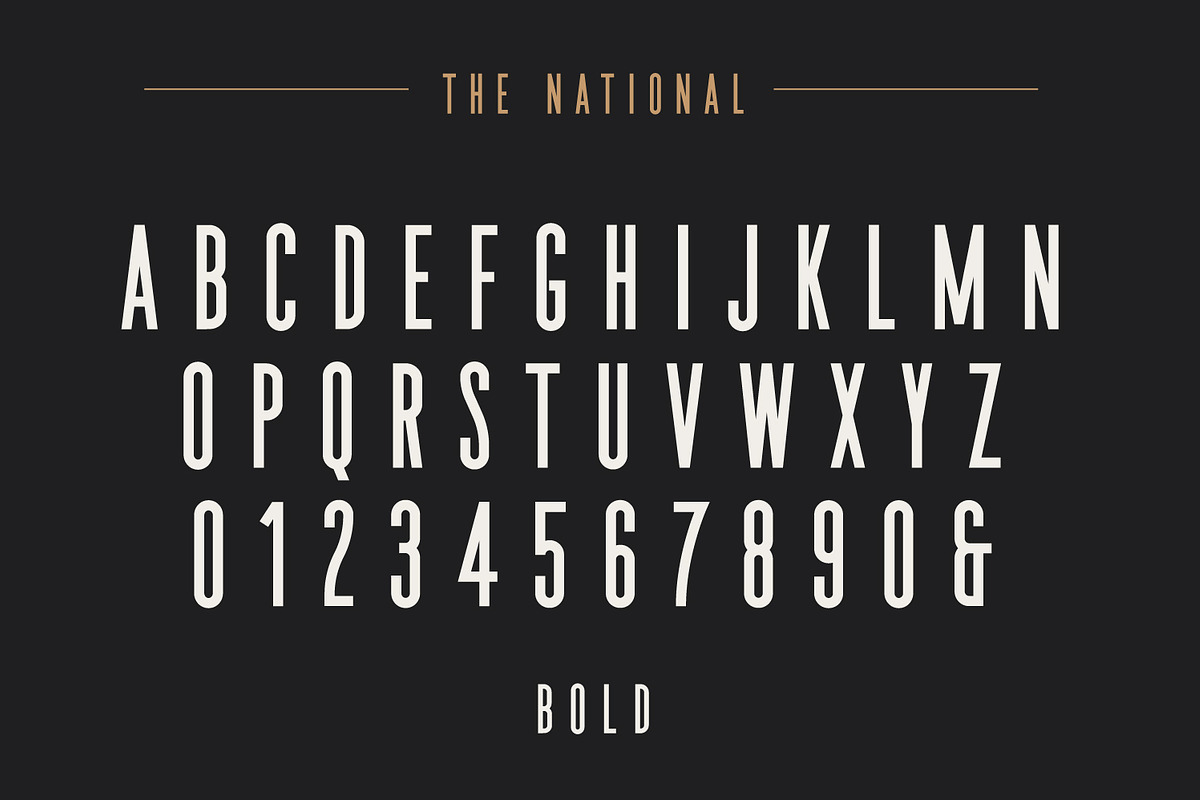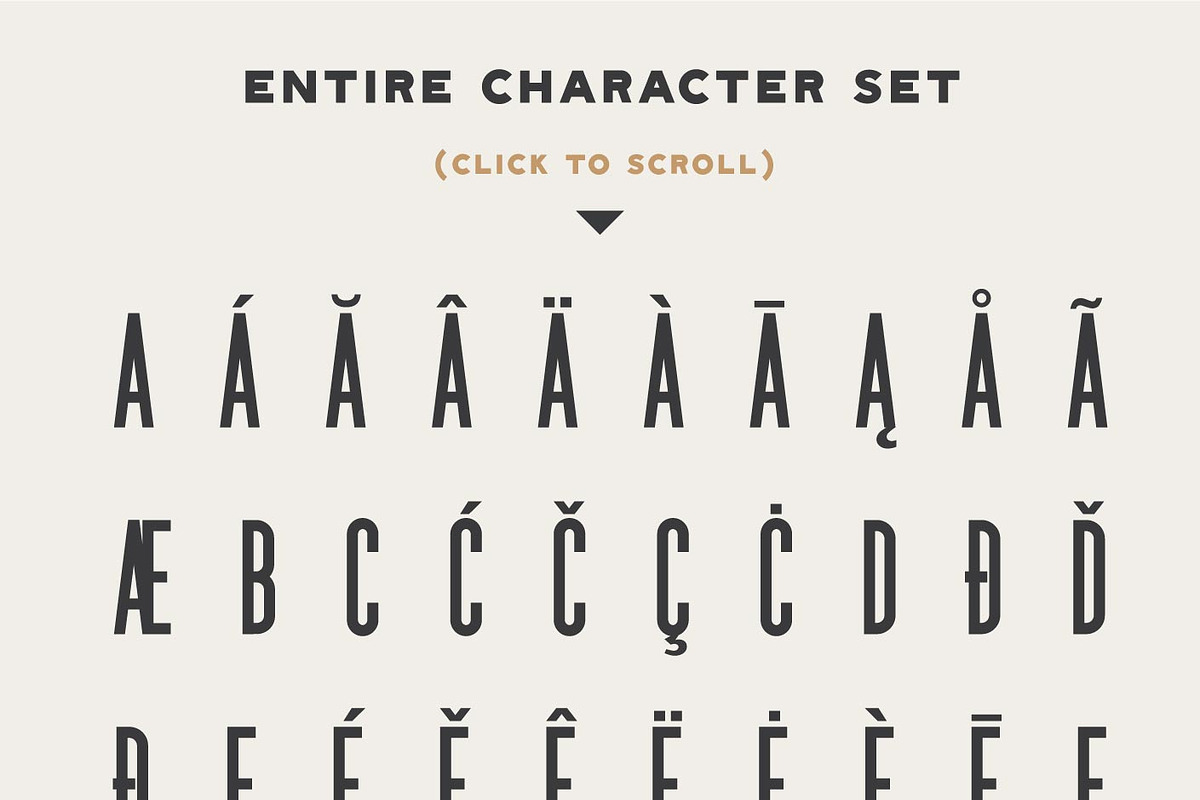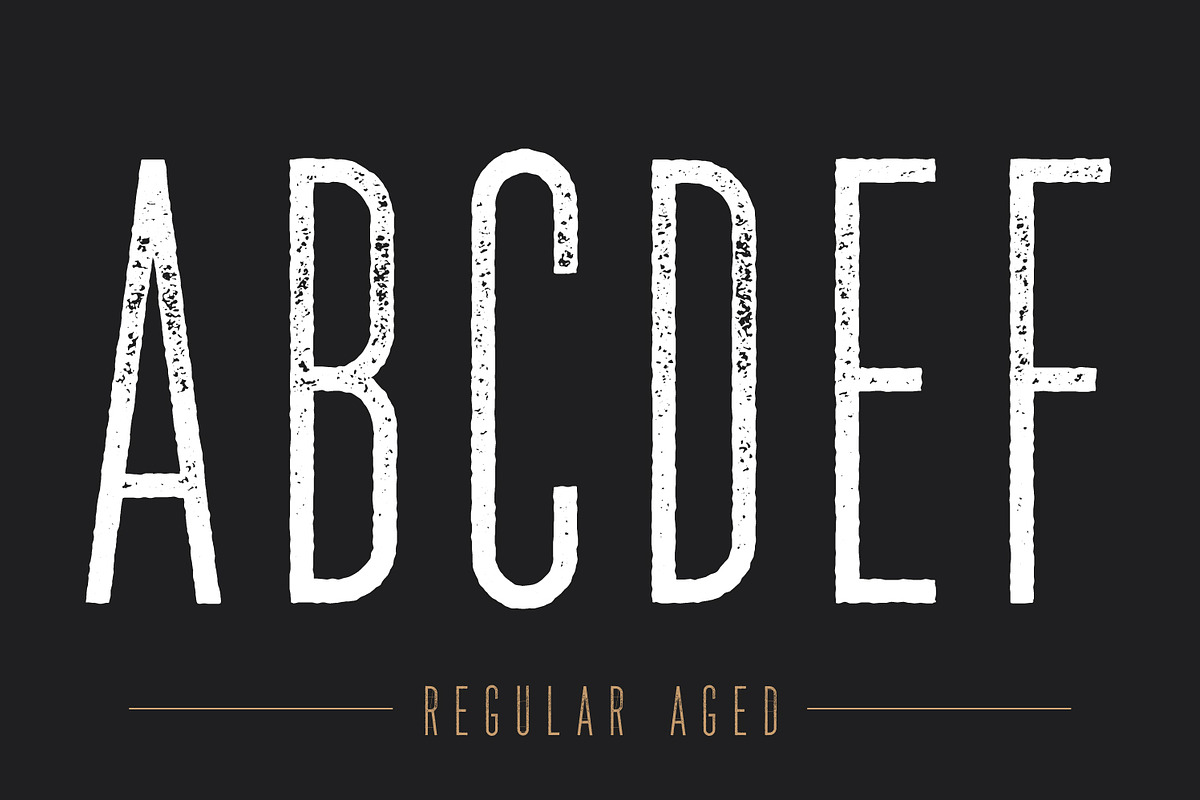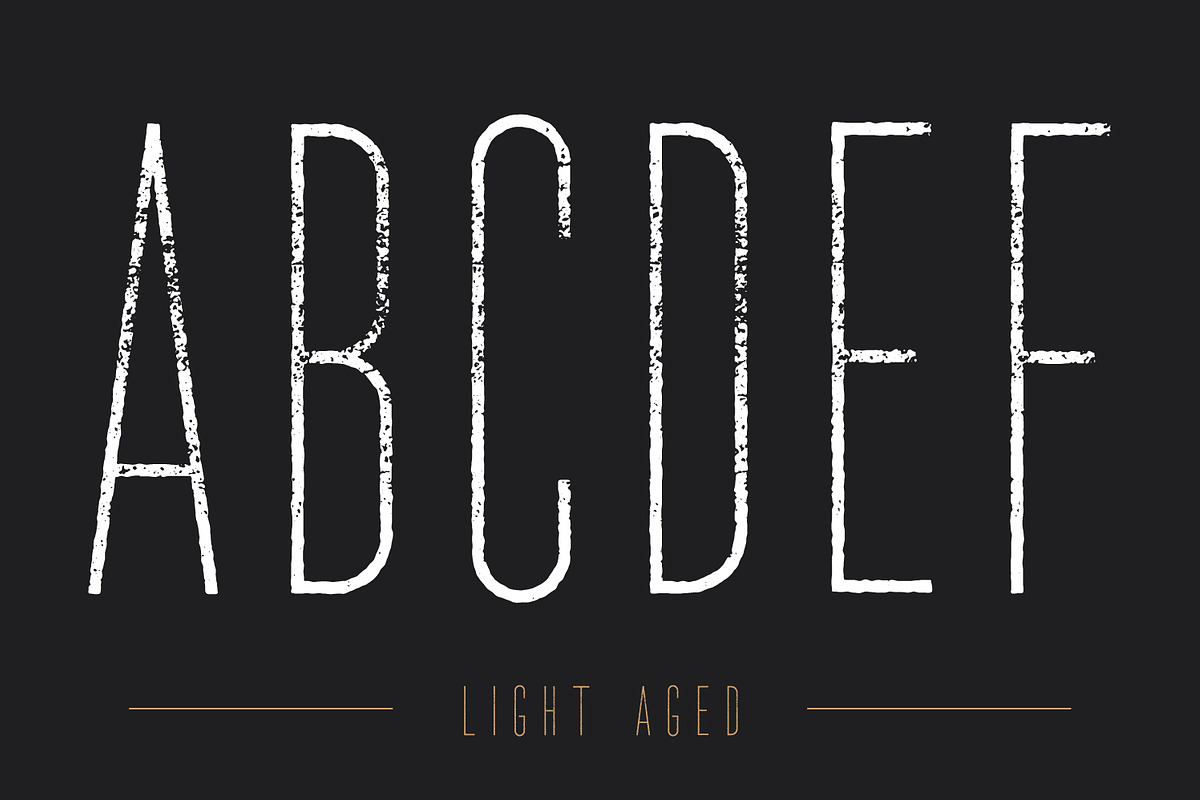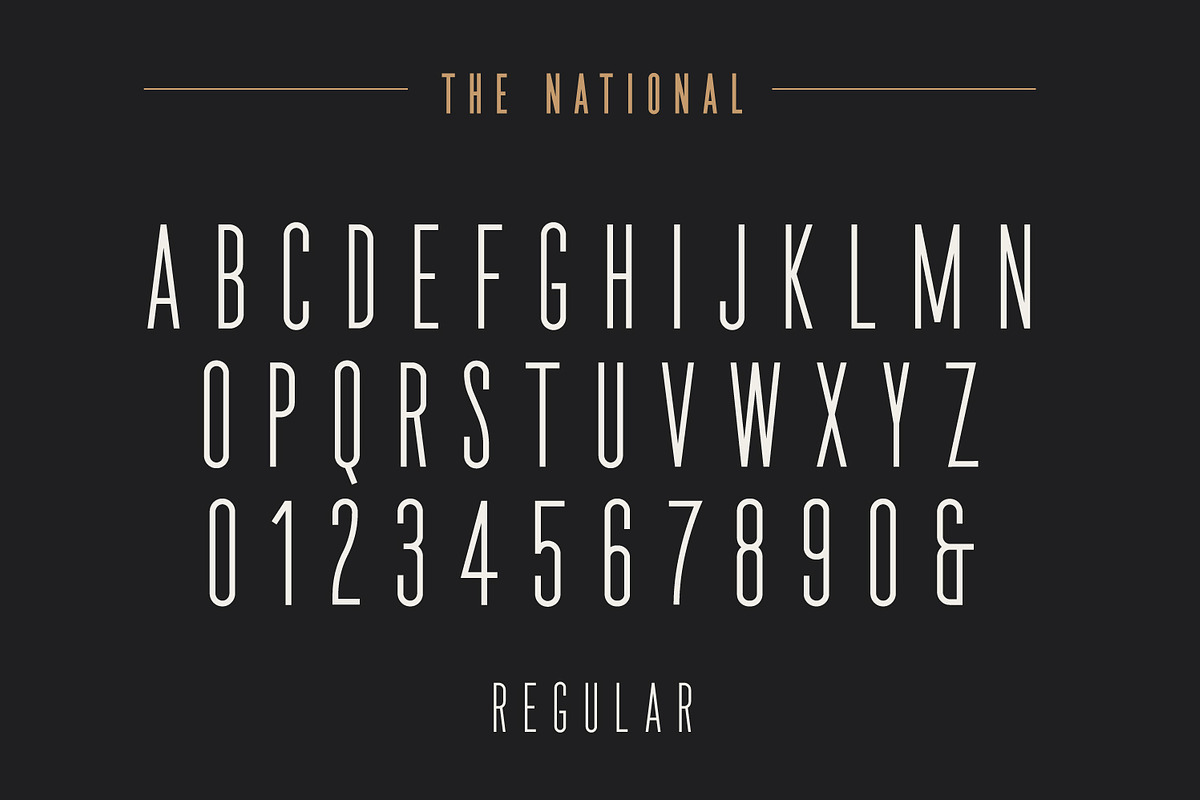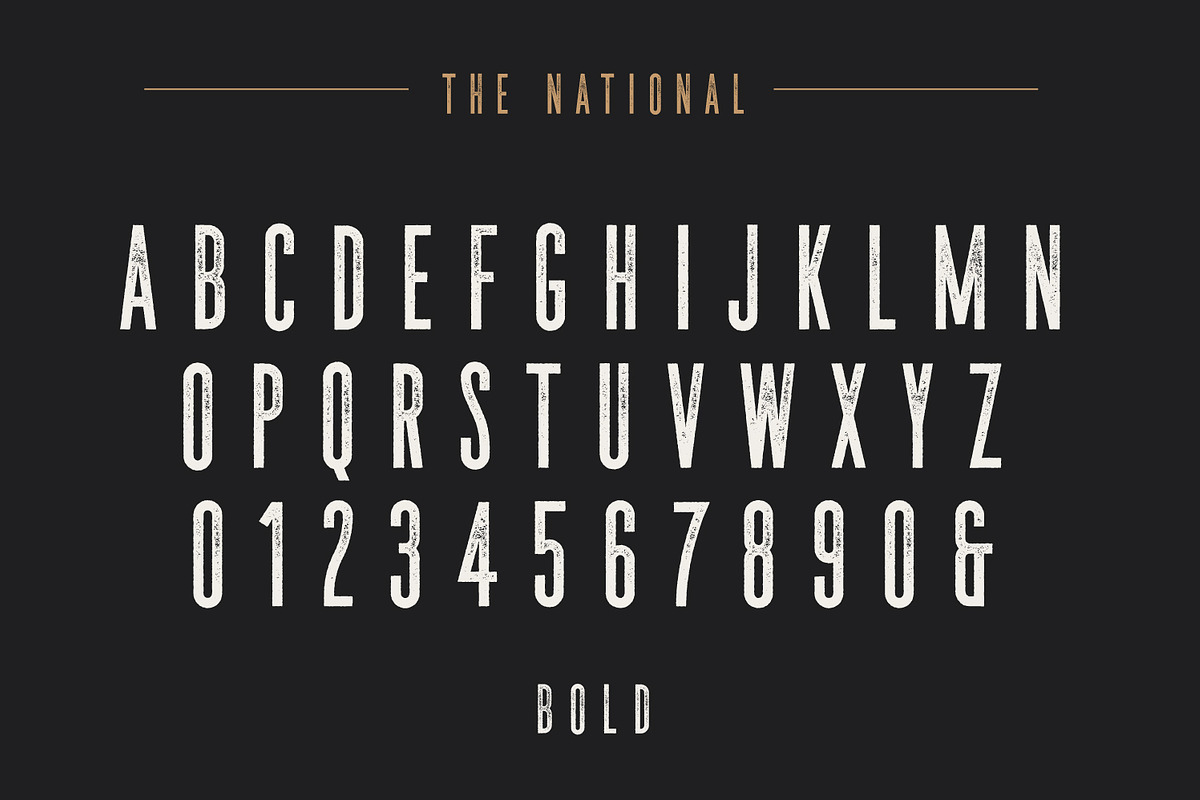
The National | Condensed Type Family
The National By HSCo
The National is an ultra condensed Type Family that includes Light, Regular & Bold versions. Each version contains a clean, textured (Aged) and Oblique version. With 3 weights and aged treatments, The National can give a diverse set of aesthetics. With light giving a much more modern, fashionable feel and the bold giving a more rugged vibe for whisky packaging.
- Western International Character Set
- Clean, Aged & Oblique versions